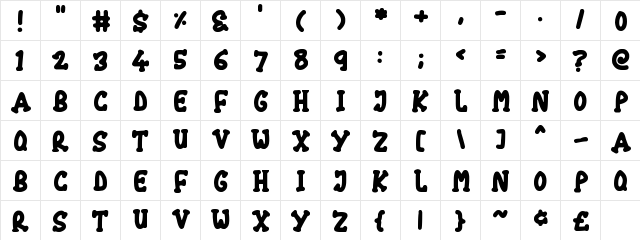
Chubby Regular Font Preview
Chubby Regular
Chubby Regular Font Details
Design Context for Chubby Typeface
Chubby is a composed and adaptable typeface that performs quietly and consistently across a wide range of design contexts.
Pro Tip: Use Chubby in both headline and body roles to test its range before committing to a single application.